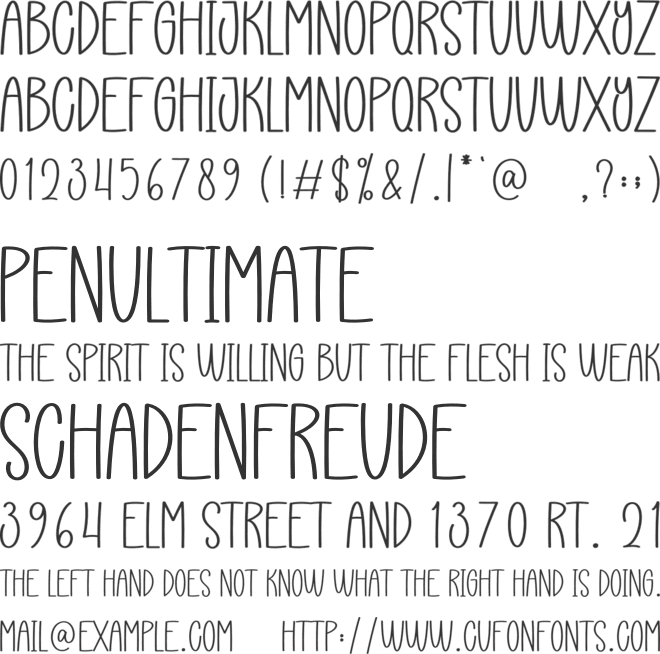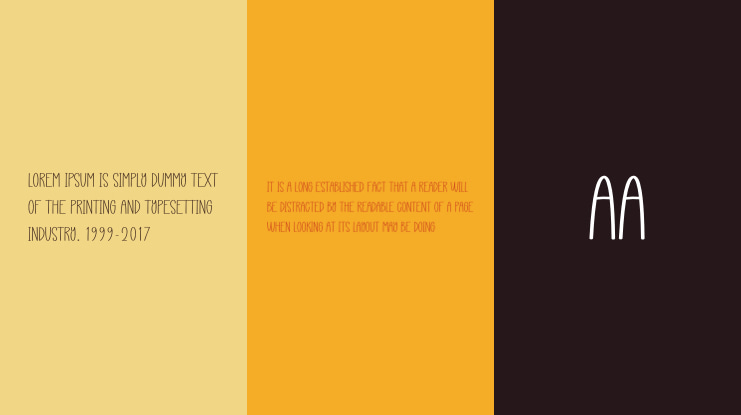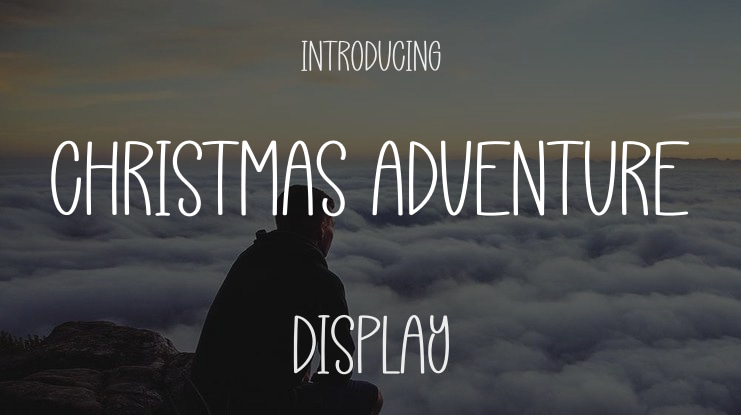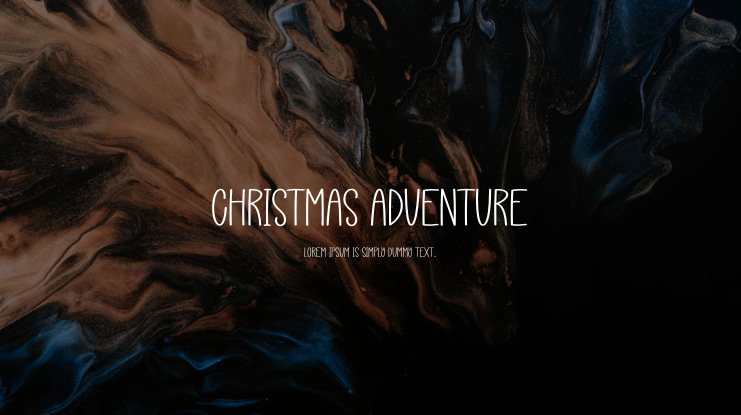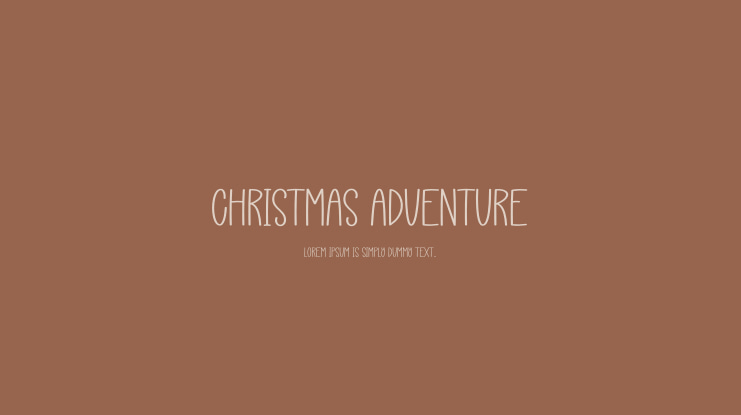
Our special creative products are designed to provide you with an extraordinary experience. Featuring the latest style of lettering, these products are perfect for:
- Wall displays - Wedding invitations - Social media post logos - Advertisements - Product packaging and designs - Labels - Photography watermarks - Invitations and stationery - Any project that requires tasteful handwriting